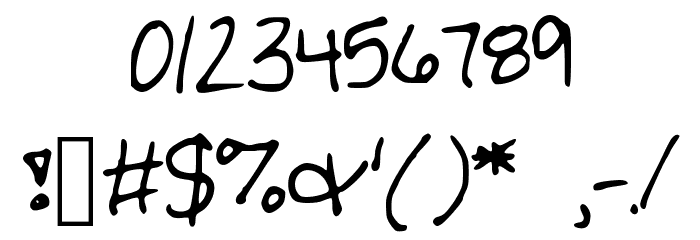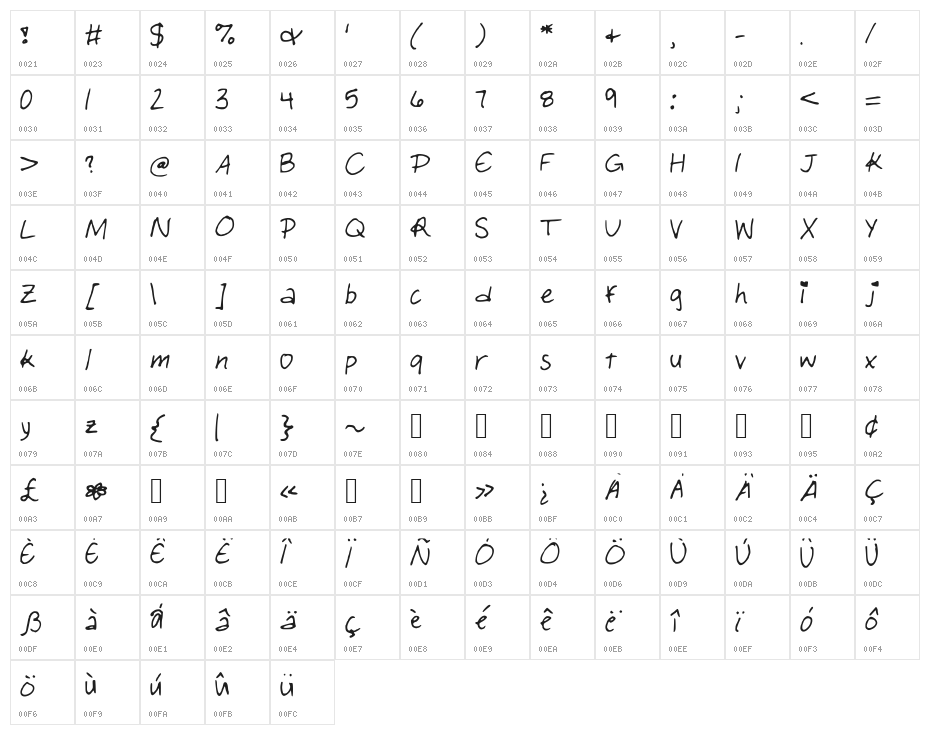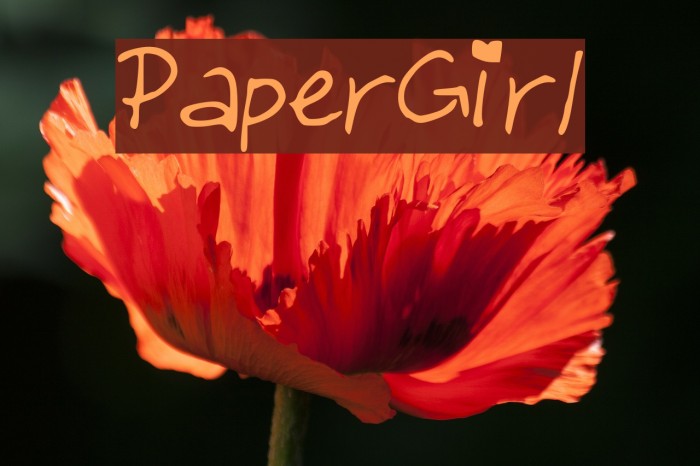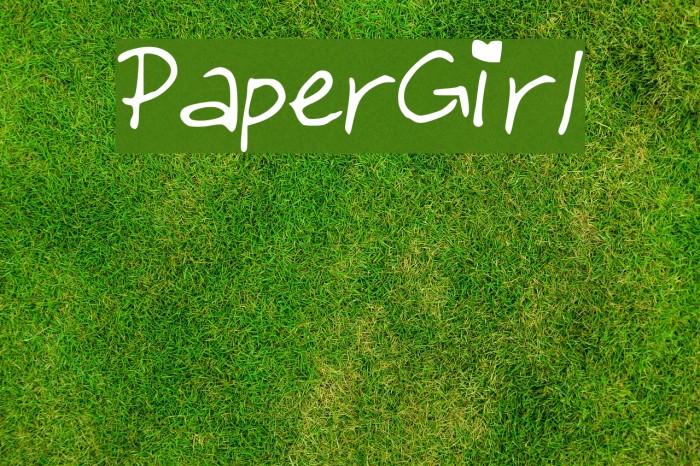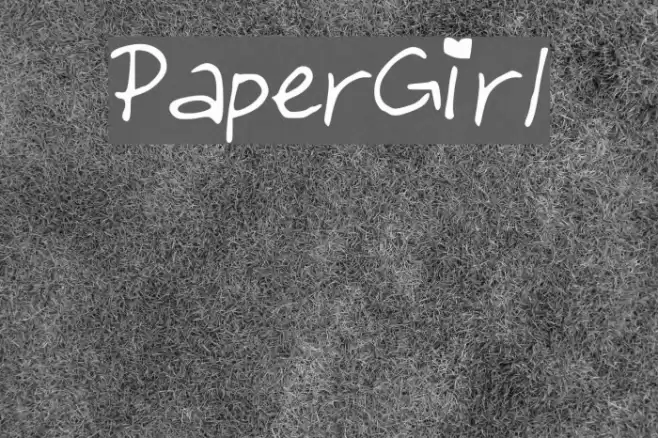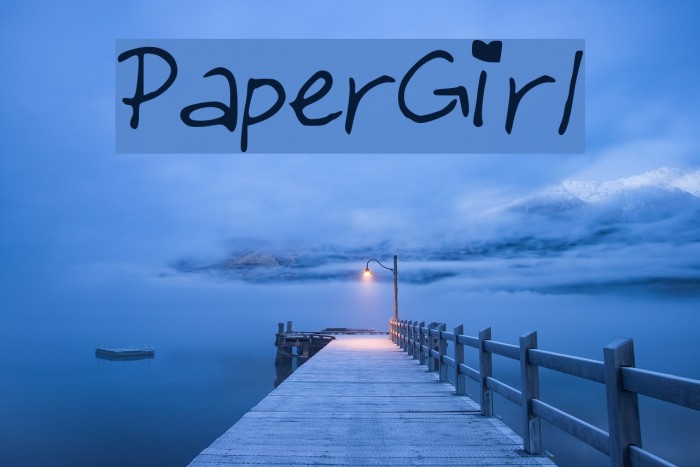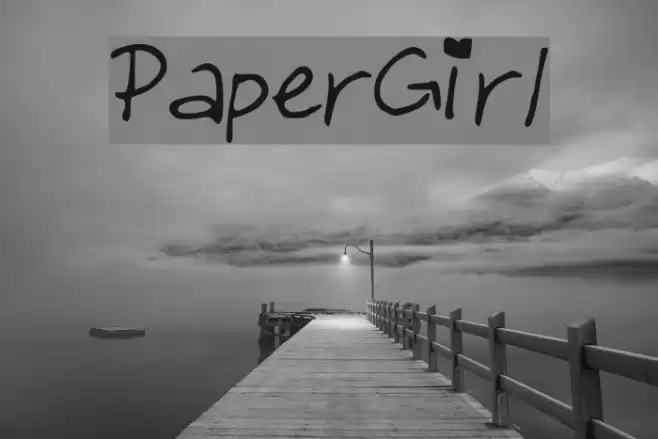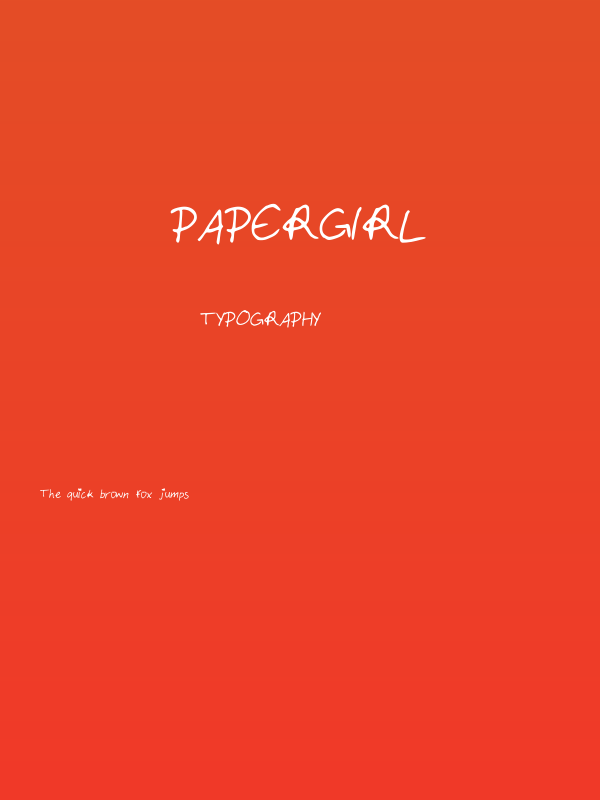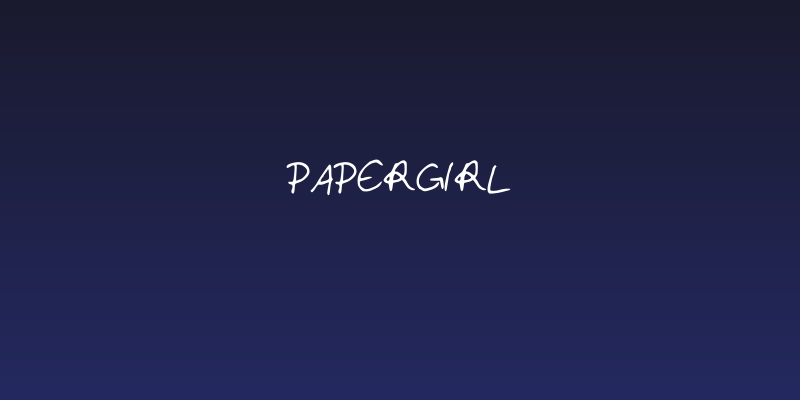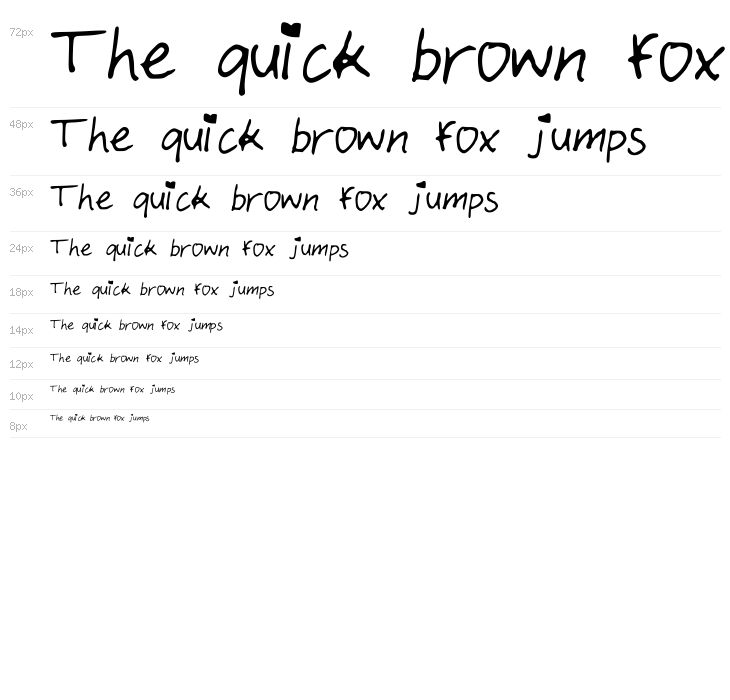
PaperGirl Font
PaperGirl Description
This font exudes a playful and casual handwritten style, characterized by its irregular and whimsical letterforms. The strokes are uneven, giving it a dynamic and lively appearance. Each character has a unique flair, with some letters featuring exaggerated loops and curves. The overall look is informal and friendly, making it ideal for projects that require a personal touch. The font maintains a consistent line weight, ensuring readability while retaining its quirky charm. The numerals and special characters complement the alphabet with similar playful characteristics, enhancing the font's cohesive style.
| Proposed Projects | Ideal for greeting cards, children's books, playful branding, and casual invitations. |